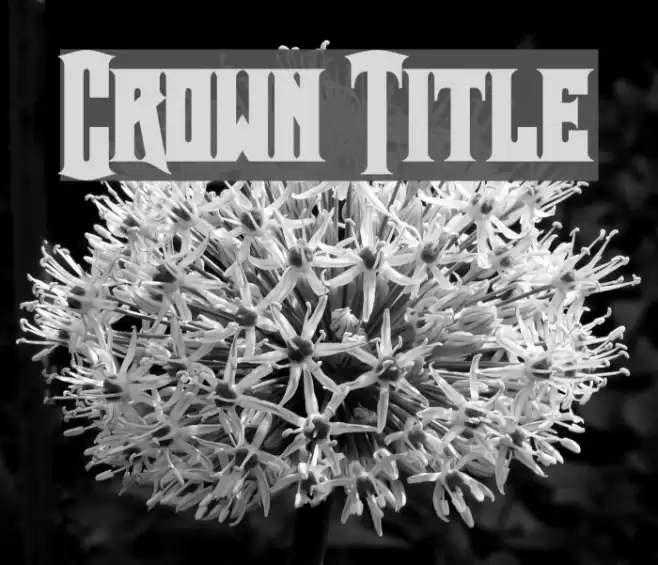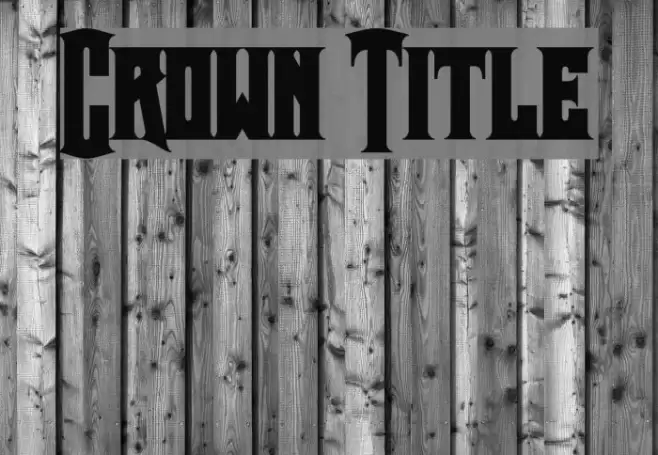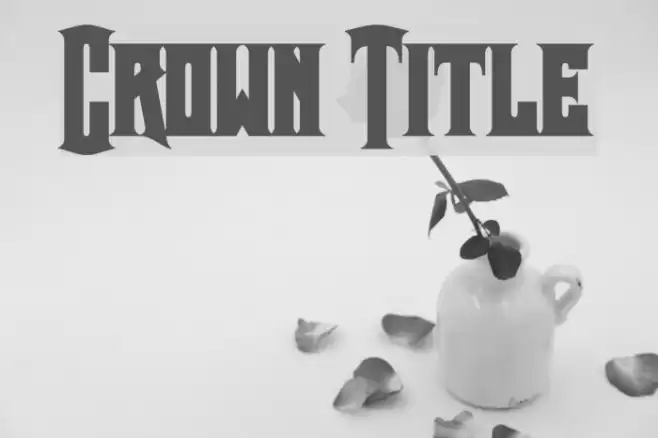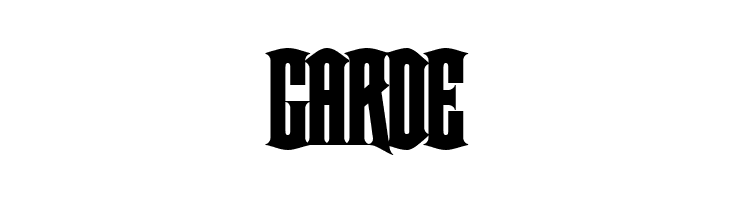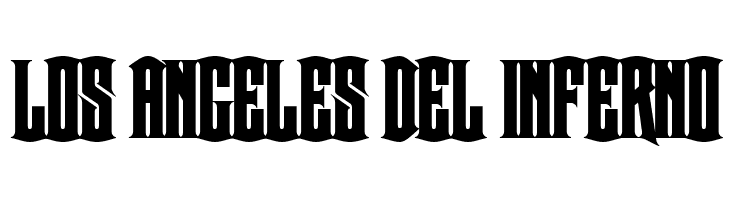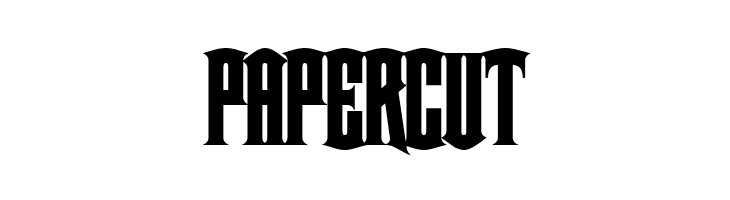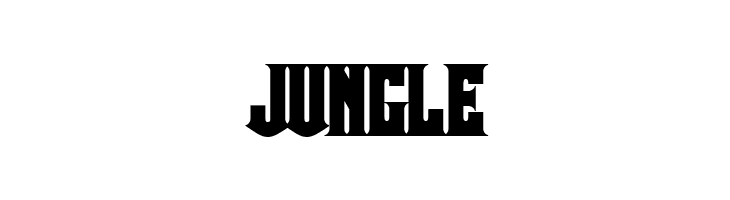
Crown Title Font
Crown Title Description
This font features a bold and striking design, characterized by its sharp, angular lines and dramatic serifs. The uppercase letters are tall and imposing, with a gothic influence that gives them a medieval appearance. The lowercase letters maintain the same boldness, ensuring consistency throughout the typeface. The numbers and special characters are equally bold, with a unique style that complements the overall aesthetic. This font is ideal for making a strong visual impact, suitable for headlines or titles that require attention.
A bold, gothic-inspired font with sharp, angular lines and dramatic serifs from Decorative fonts.
- Proposed Projects: Ideal for projects that require a strong visual impact, such as posters, album covers, or branding for edgy or alternative products.
- Character Spacing: Tight